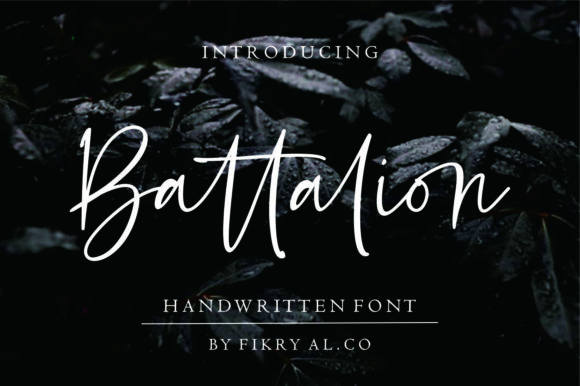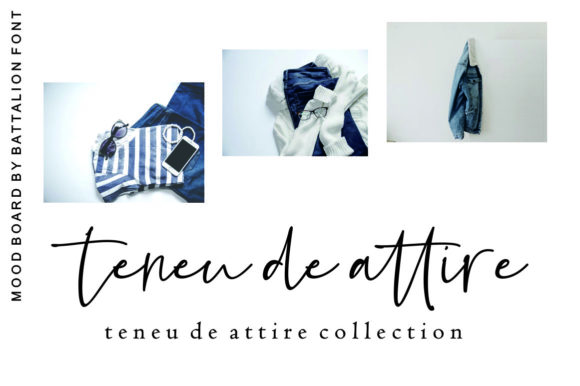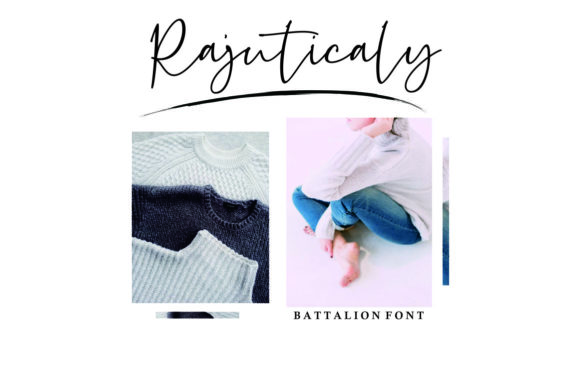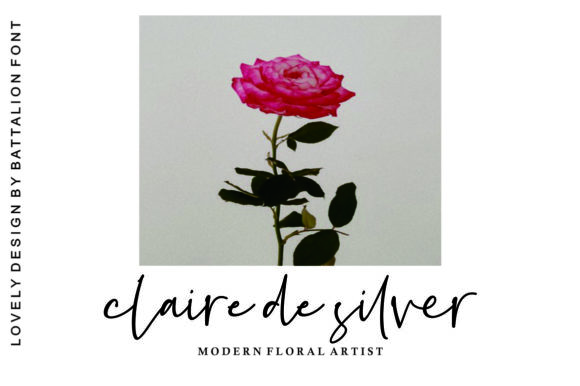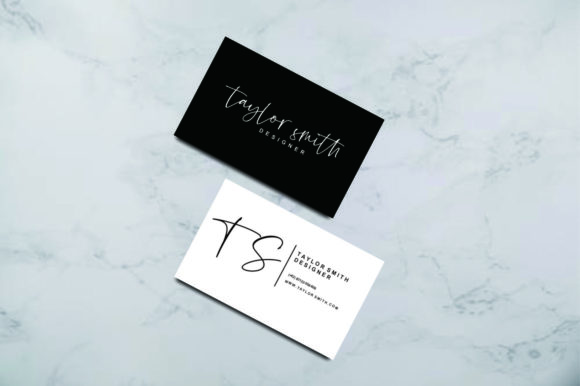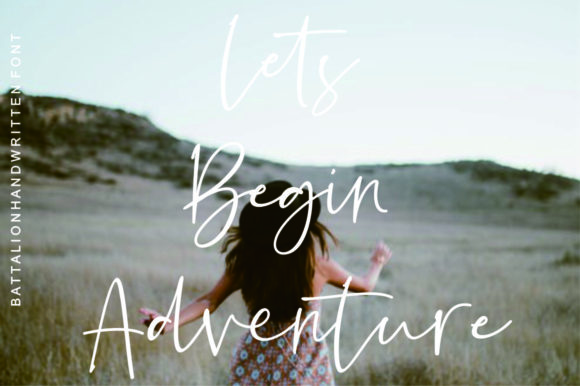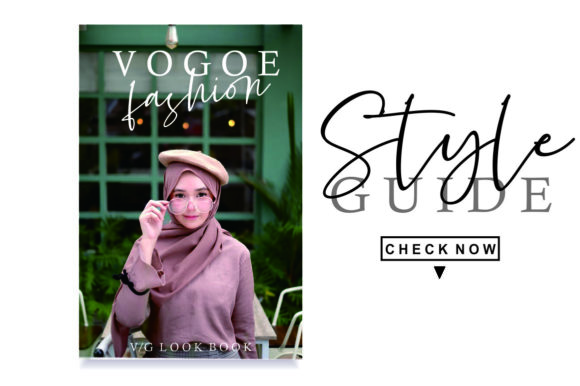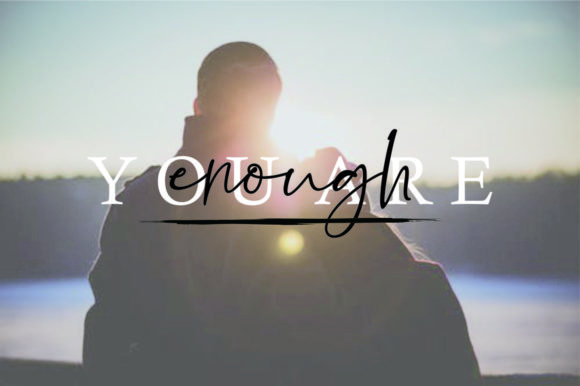
Battalion Font
About Battalion Font
The Battalion is a beautiful handwritten font. It includes amazing ligatures and alternates with an elegant style.
It’s suitable for logos, branding, quotes, magazines, signatures, banners, posters, and much more!